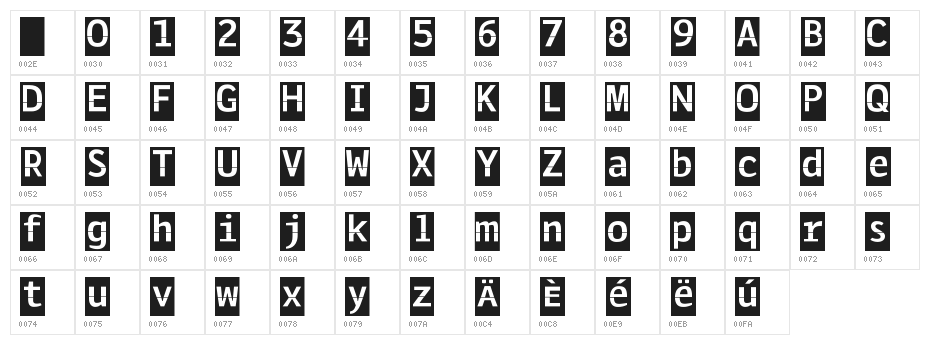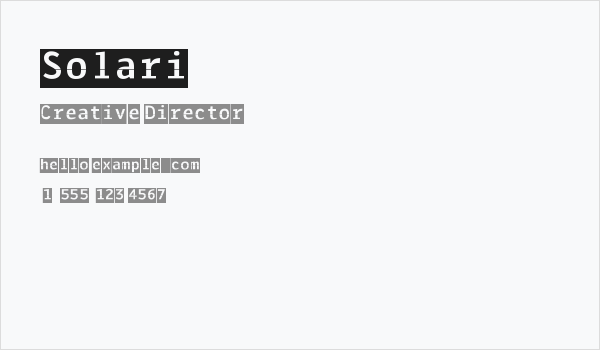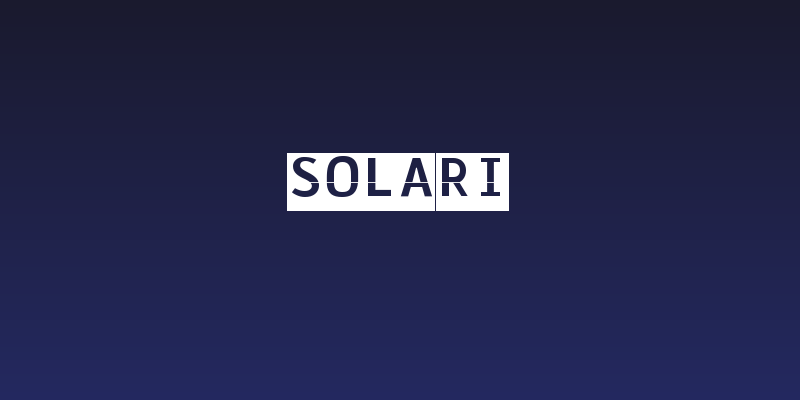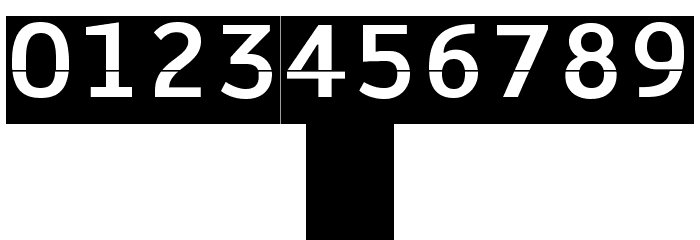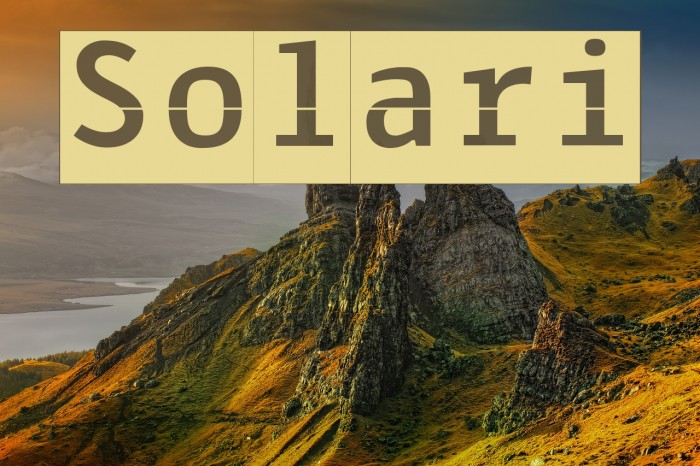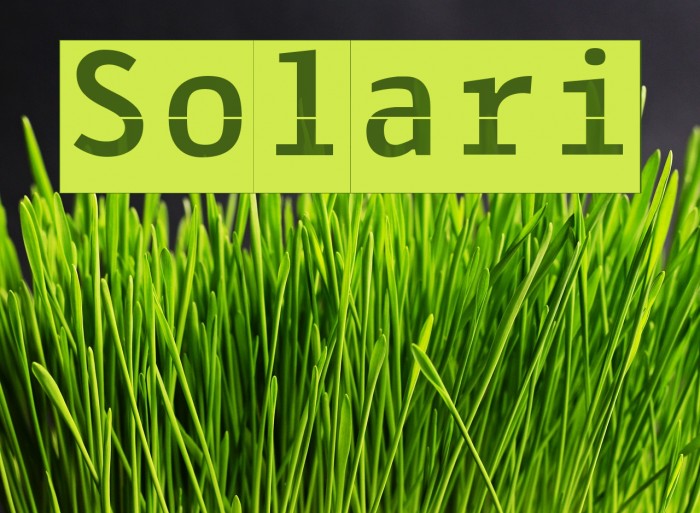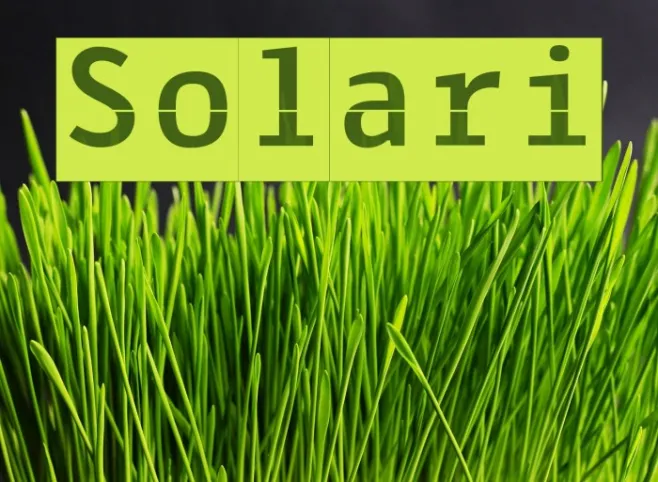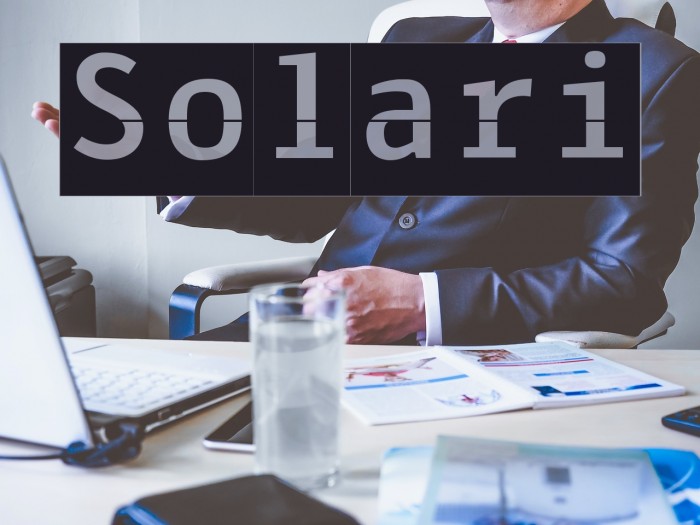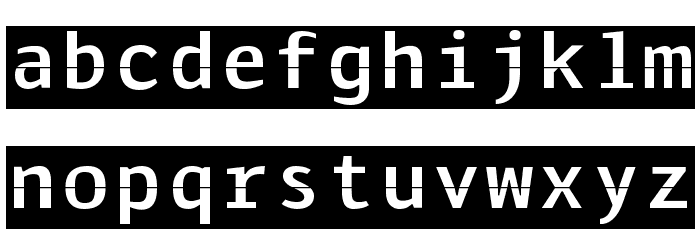
Solari Font
Solari Description
This font features a bold and modern design with a distinct geometric style. Each character is enclosed within a square, creating a unique and structured appearance. The uppercase letters are particularly striking, with sharp angles and clean lines that convey a sense of precision and clarity. The lowercase letters maintain this geometric theme, offering a cohesive look across all text. Numbers and special characters are equally bold, ensuring consistency throughout. This font's high contrast and strong presence make it ideal for impactful visual communication.
| Proposed Projects | Ideal for signage, posters, branding, and any project requiring a strong visual impact. |